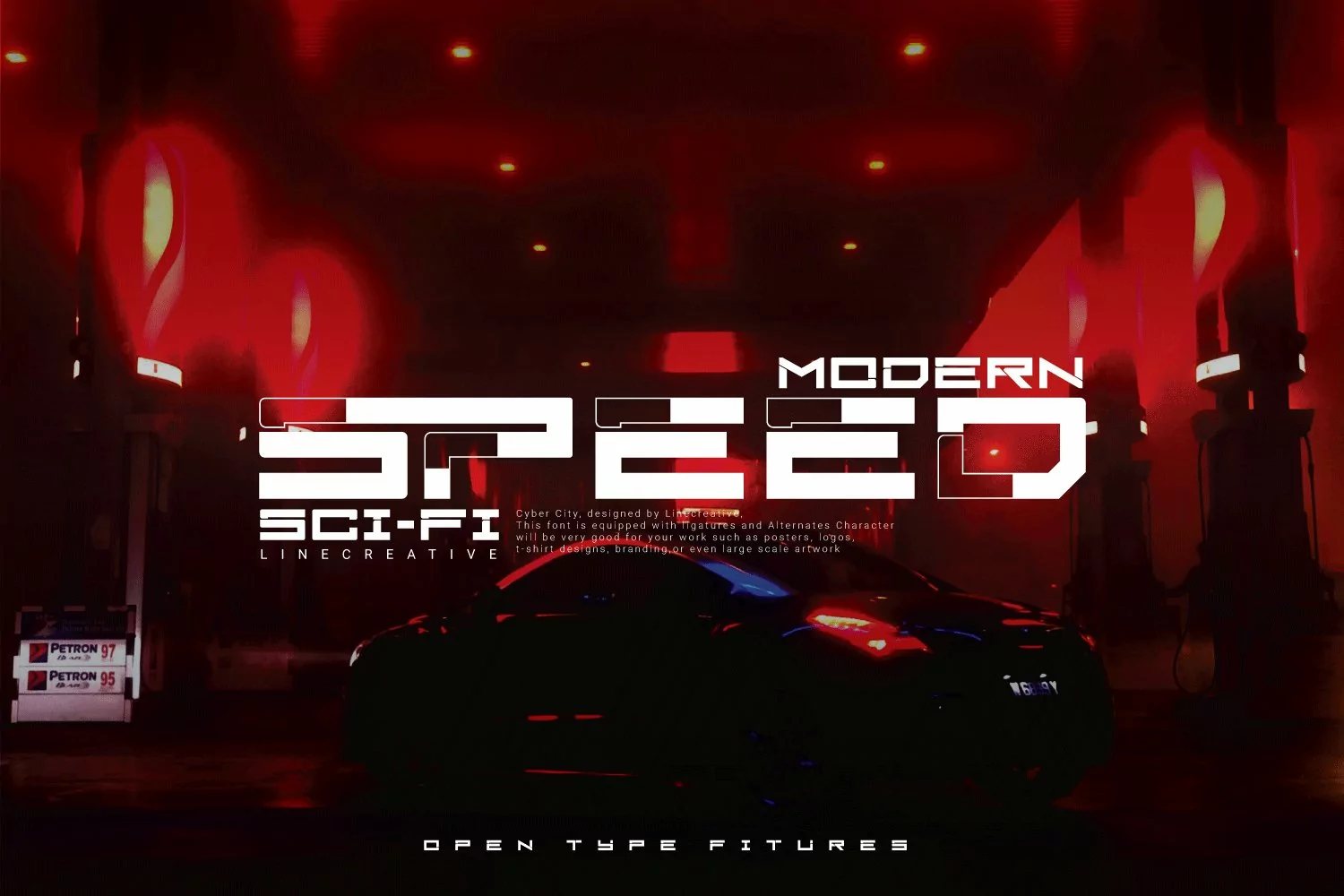
Cyber City is a modern san serif font that gives a clean, minimalist and futuristic impression, this font is equipped with upper and lower case letters, but lowercase letters have holes in the letter structure and uppercase letters have slices that give a clean futuristic impression, besides the Cyber City font also equipped with fasteners and replacements, so that it can give the impression of an unlimited design,